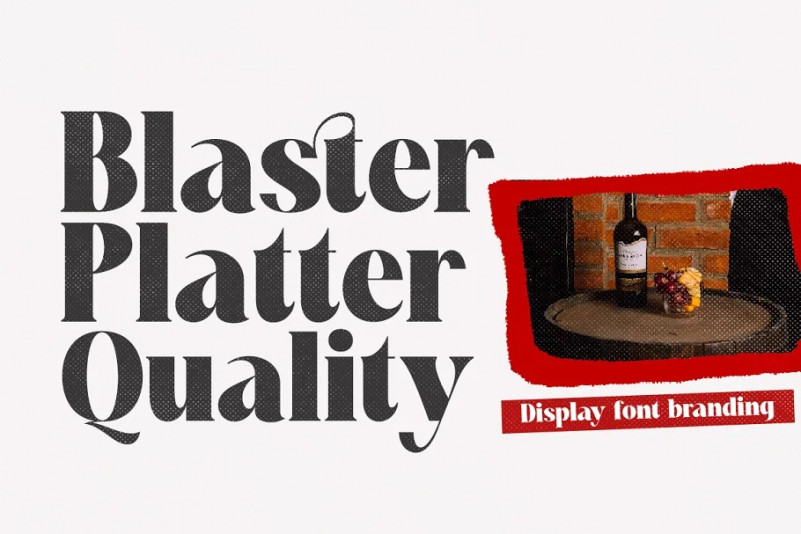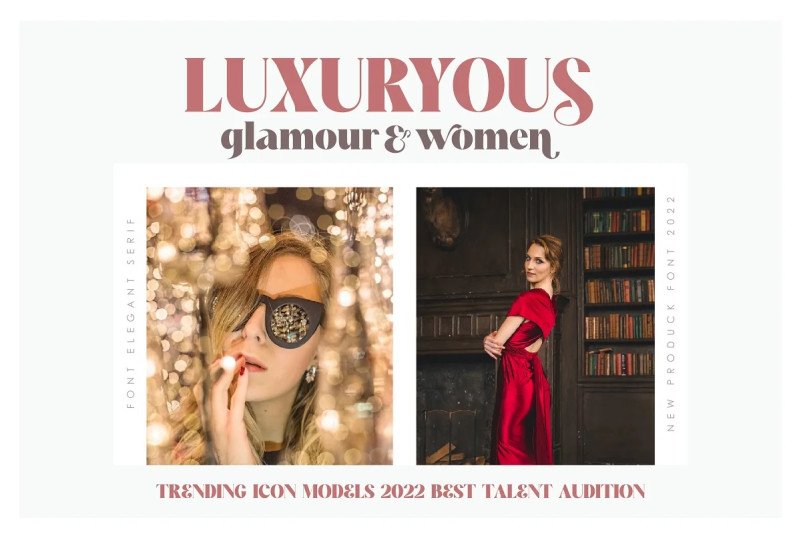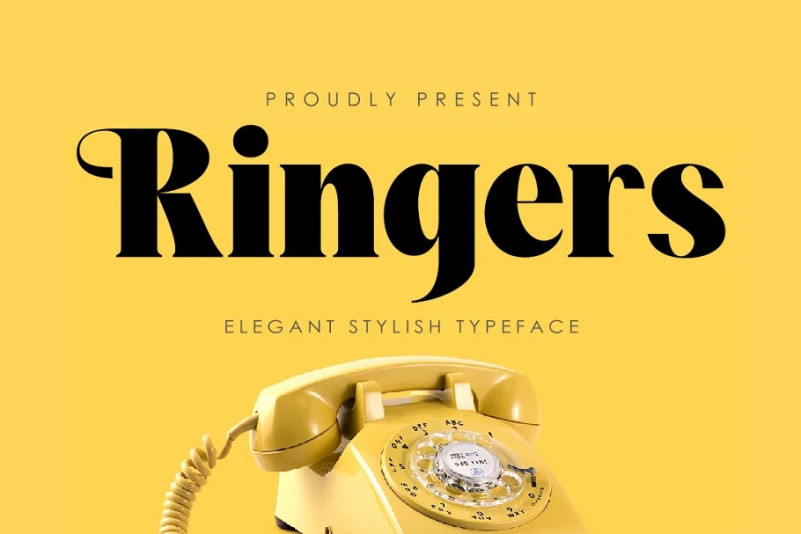
Ringers Font
New here Ringers Serif Font is a stylish, versatile font with lots of alternative characters, multilingual support, and unique ligatures. OpenType features include style sets, character variants, start and end forms, and multilingual support. It’s easy to mix and match for your projects Perfect for branding, logos, magazine imagery, wedding invitations, posters, apparel, packaging, website headers, or just as a stylish text overlay onto any background image.